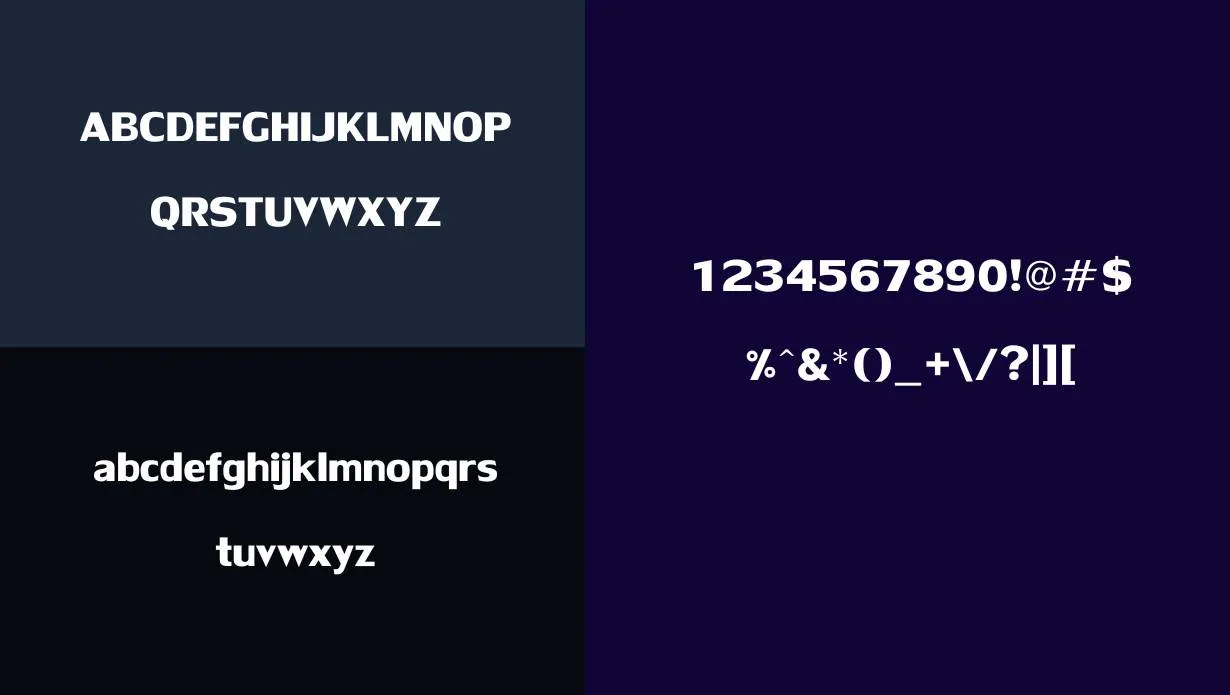
The LilyUPC font is like a classic note in letters. With its timeless and straightforward design, it’s perfect for crafting clear and simple documents, designing clean product labels, or adding a touch of classic elegance to your projects.
This font has a medium weight and standard width, ensuring your words look clear and timeless. Imagine using the LilyUPC font for a formal letterhead, turning your text into a note of classic professionalism.
| Name | LilyUPC Font |
| Designer | Unity Progress |